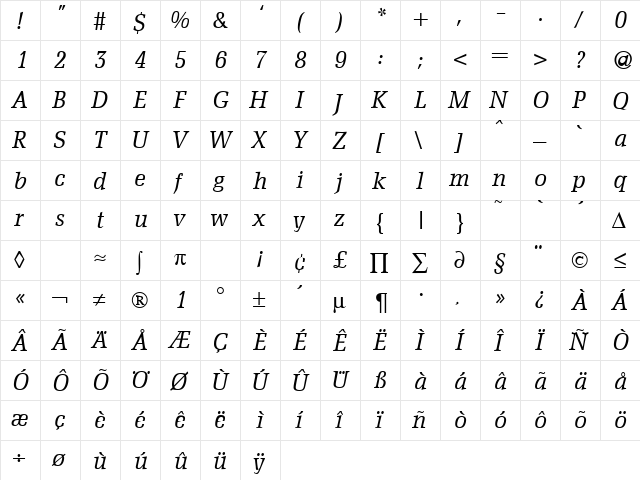
Domenica RegularItalic
Design Context for Domenica Typeface
Domenica offers clean, dependable letterforms without strong stylistic allegiance, making it a practical choice for designers who need flexibility. The dynamic lean of this cut emphasises speed and emphasis in any layout.
Pro Tip: Try Domenica for annotation and caption copy alongside an upright companion — the contrast in angle creates a dynamic but ordered typographic system.